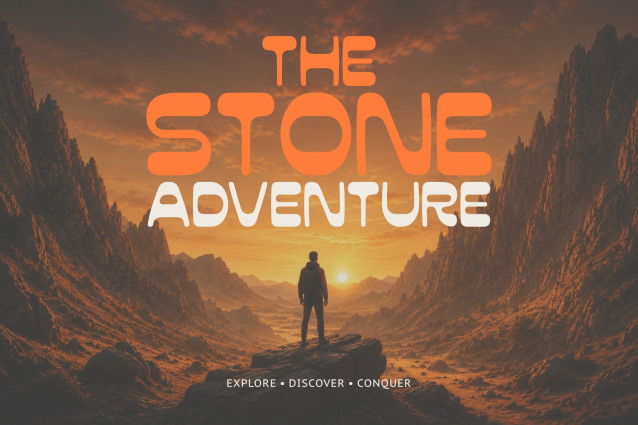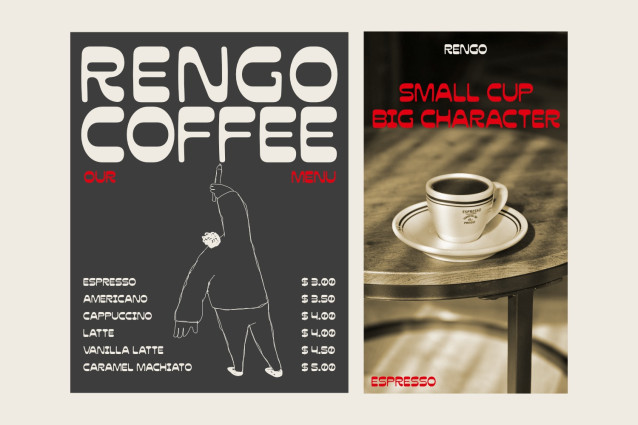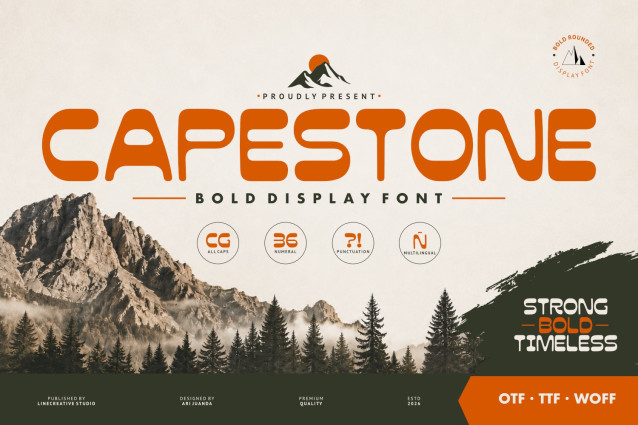
Capestone – Bold Display Font
Capestone is a bold display font inspired by the strength of mountains, outdoor adventures, and timeless branding. Designed with smooth rounded corners and confident geometric shapes, Capestone delivers a modern yet friendly appearance that instantly grabs attention.
Whether you’re creating outdoor brands, coffee packaging, travel posters, apparel, logos, or social media graphics, Capestone gives your designs a strong and memorable identity.
Its clean construction and bold personality make it perfect for projects that demand impact while maintaining excellent readability.
Perfect For
- Outdoor & Adventure Branding
- Camping & Hiking Logos
- Coffee Packaging
- Café & Restaurant Branding
- Apparel & Merchandise
- Travel Posters
- Signage
- Product Packaging
- Sports & Lifestyle Brands
- Social Media Graphics
- YouTube Thumbnails
- Headlines & Display Typography